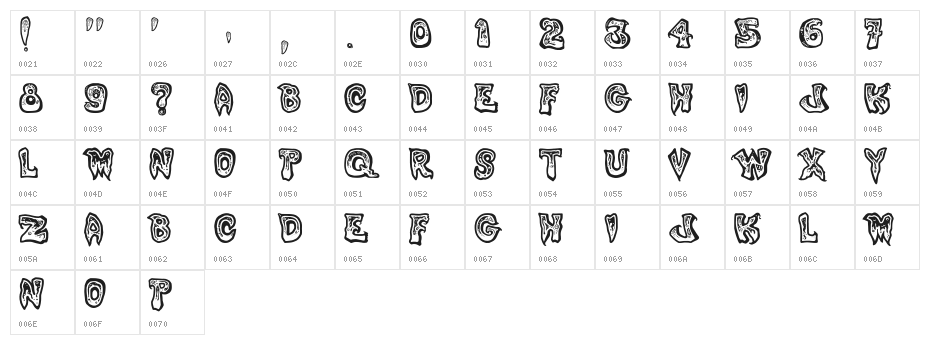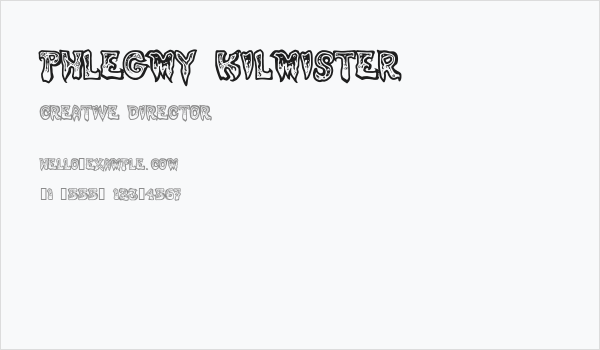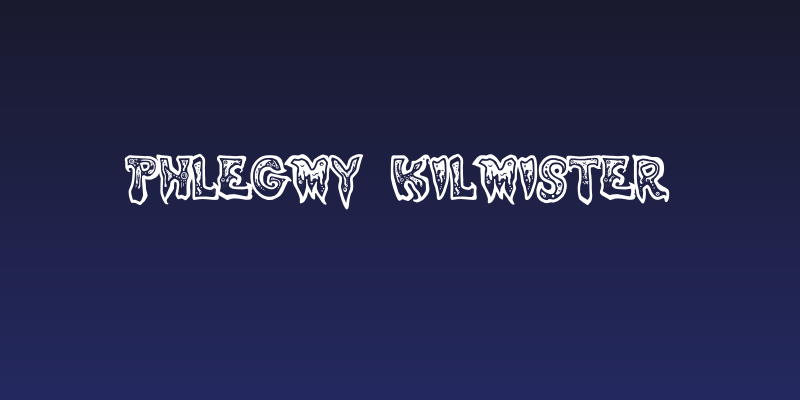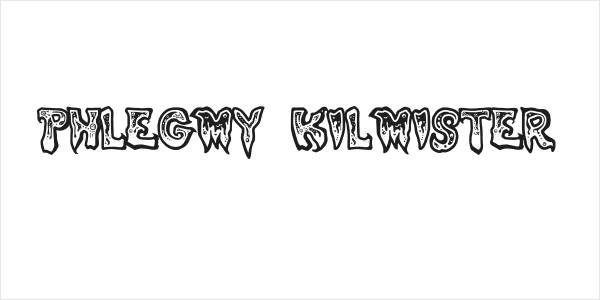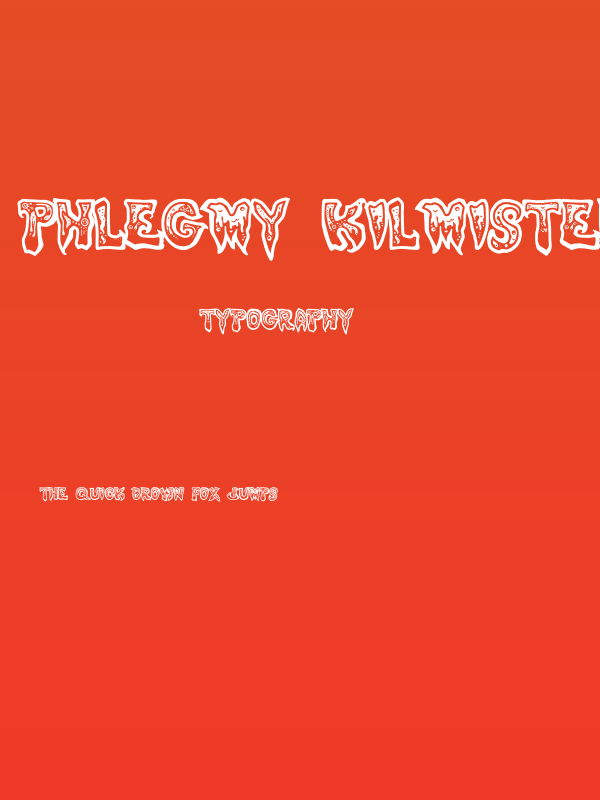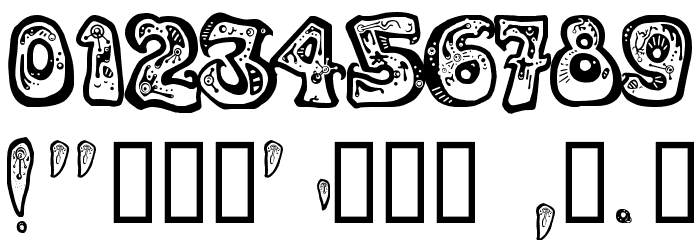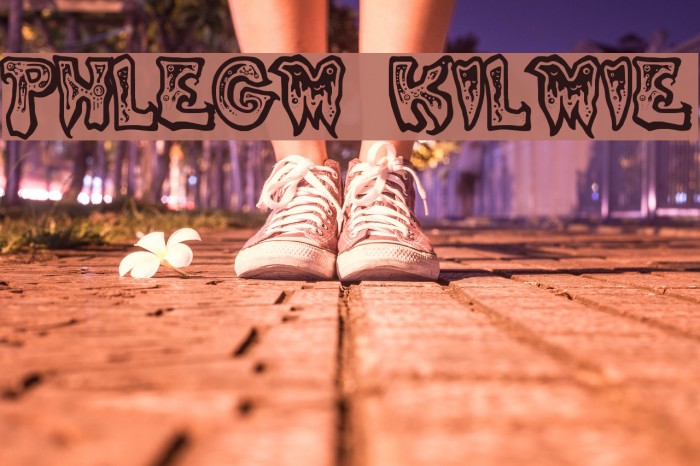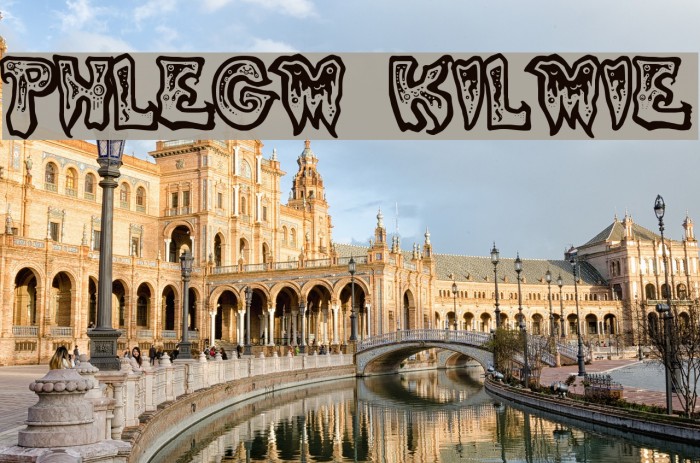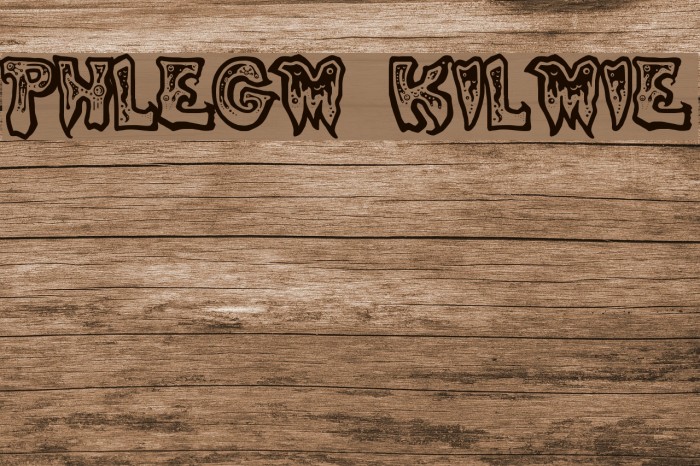
Phlegmy Kilmister Font
Phlegmy Kilmister Description
This font features a bold, decorative style with a grungy, distressed appearance. The characters are outlined with irregular, jagged edges and filled with intricate, organic patterns that give a sense of movement and chaos. The uppercase and lowercase letters maintain a consistent style, with exaggerated serifs and a playful, almost cartoonish vibe. The numbers and special characters follow the same aesthetic, ensuring a cohesive look across all elements. This font is highly stylized, making it ideal for projects that require a strong visual impact.
| Use Case | Logos, Posters, Headlines |
| Proposed Projects | Ideal for album covers, posters, Halloween-themed designs, and edgy branding projects. |